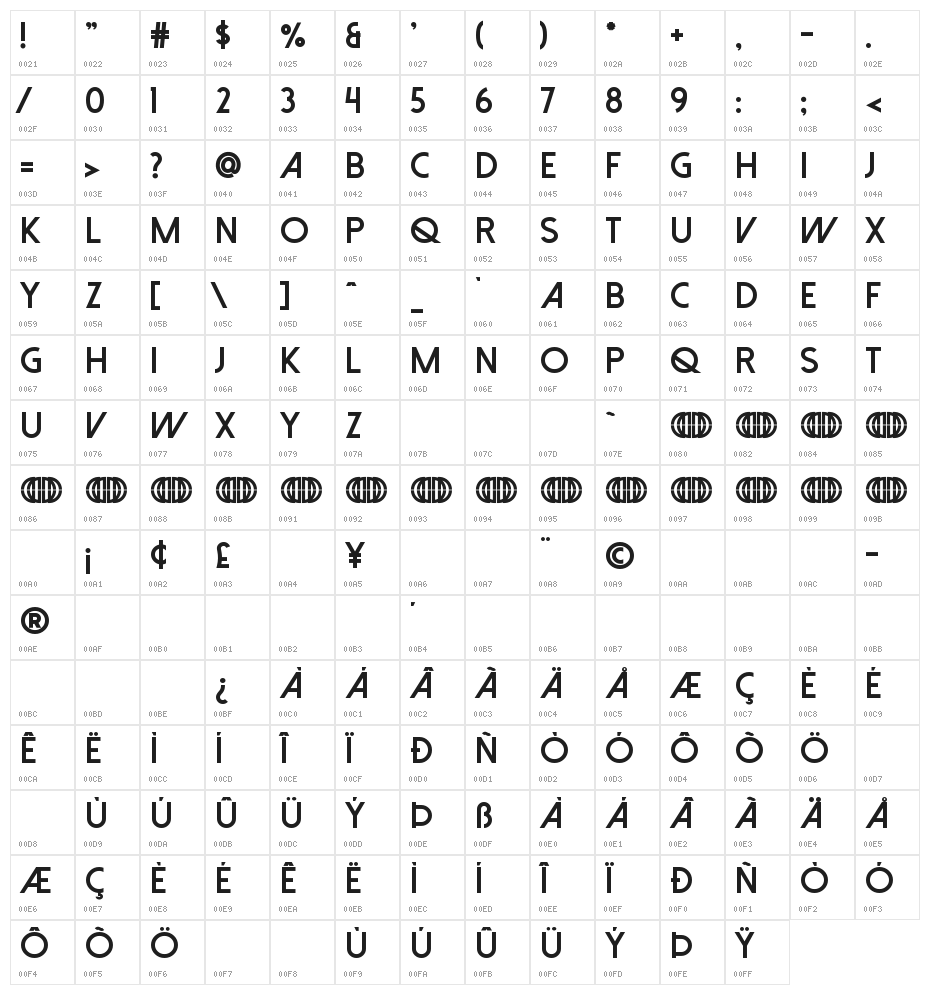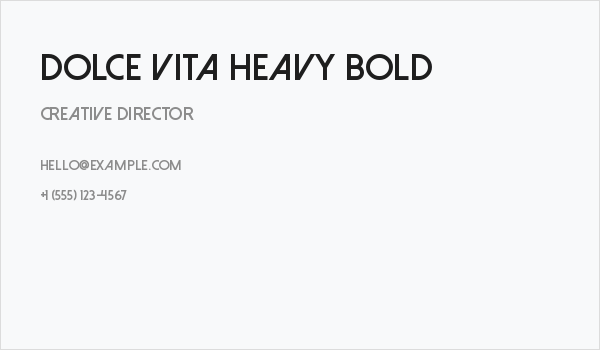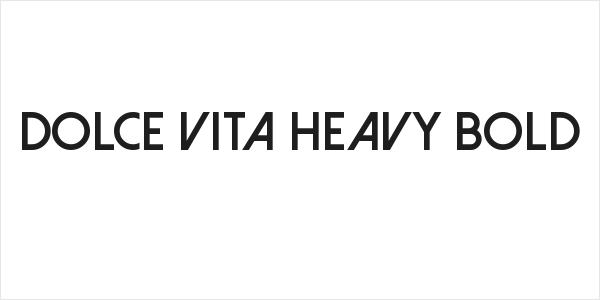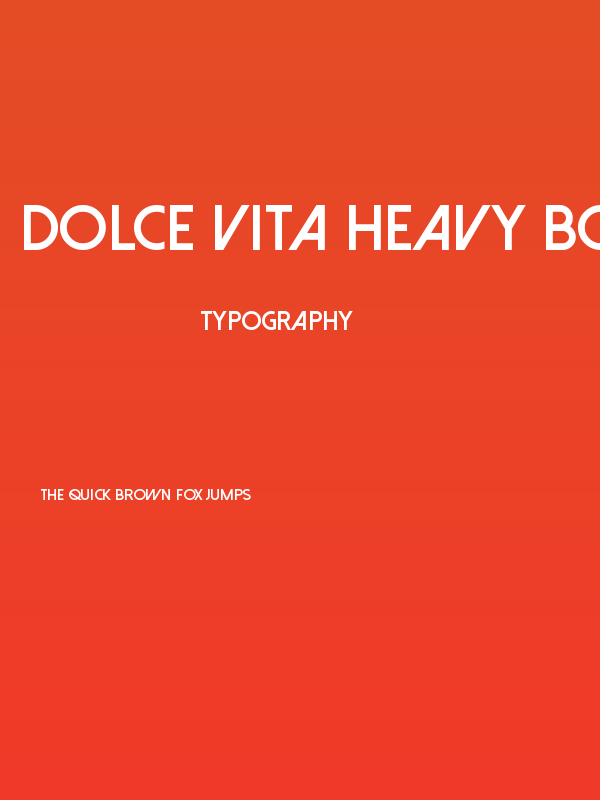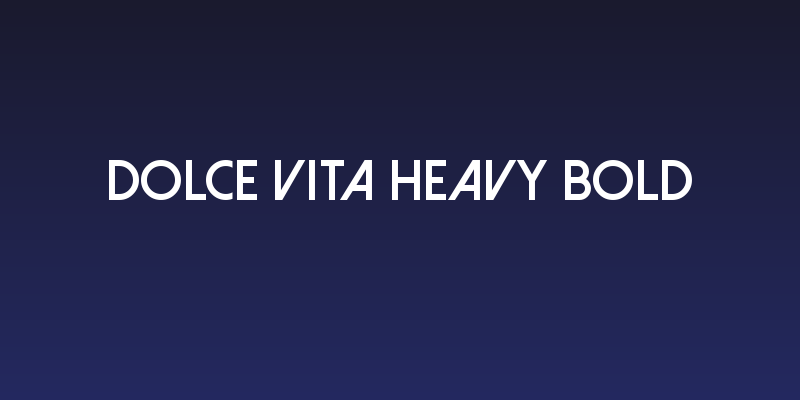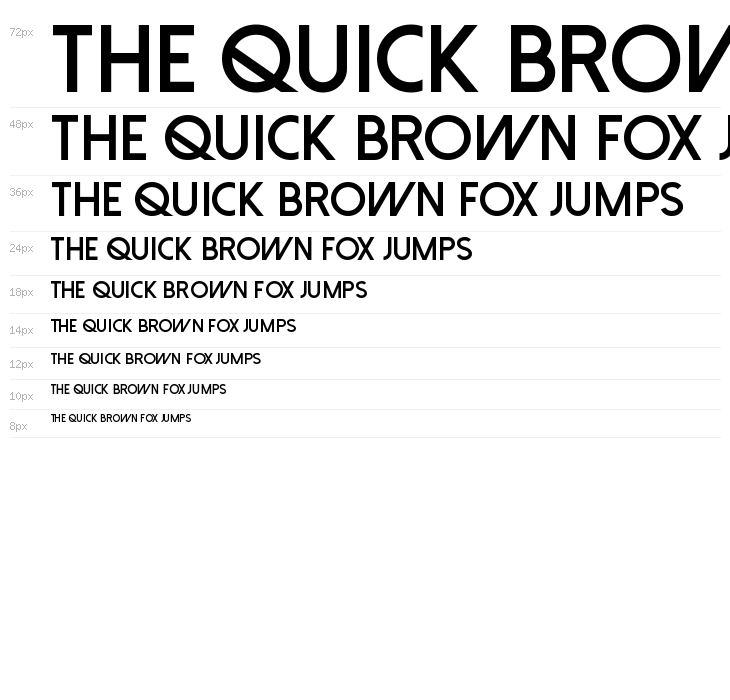
Dolce Vita Heavy Bold Font
Dolce Vita Heavy Bold Description
This font features a bold and striking design with clean, geometric lines and a modern aesthetic. The uppercase letters are uniform in height, creating a cohesive and balanced appearance. The lowercase letters maintain a similar style, ensuring readability and consistency. The numerals are clear and distinct, with a slightly rounded edge that complements the overall design. Special characters are well-integrated, maintaining the font's bold and modern look. This typeface is ideal for making a strong visual impact, with its heavy weight and clear structure.
| Proposed Projects | Ideal for branding, advertising, posters, and headlines where a strong visual presence is required. |